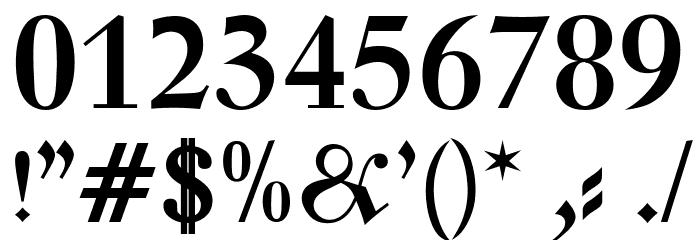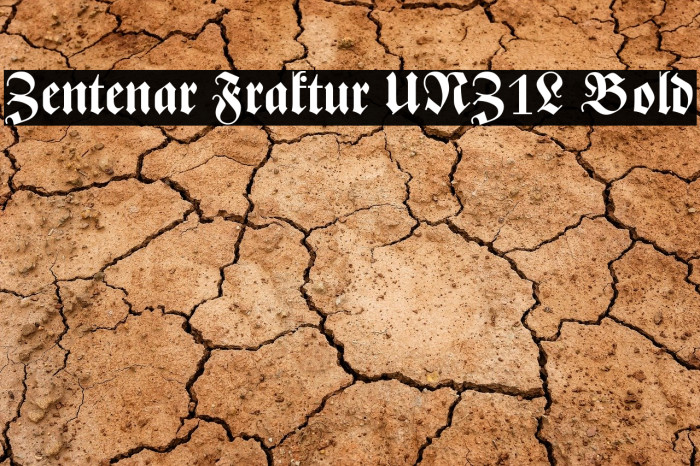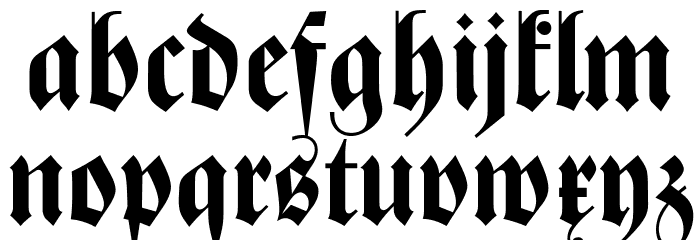
Zentenar Fraktur UNZ1L Bold Font
Zentenar Fraktur UNZ1L Bold Description
This font exhibits a classic Blackletter style, characterized by its intricate and ornate letterforms. The uppercase letters are bold and dramatic, with sharp angles and elaborate flourishes that give a sense of historical gravitas. The lowercase letters maintain the same level of detail, with a slightly more condensed form, enhancing readability while preserving the decorative essence. The numerals are consistent with the overall style, featuring strong vertical strokes and subtle curves. Special characters are equally ornate, integrating seamlessly with the alphabetic characters. This font's boldness and intricate design make it ideal for projects that require a touch of elegance and tradition.
A bold, intricate Blackletter font with ornate details and historical flair from Uncategorized fonts.
- Overall Style: Classic
- Use Case: Headlines, Logos, Decorative text